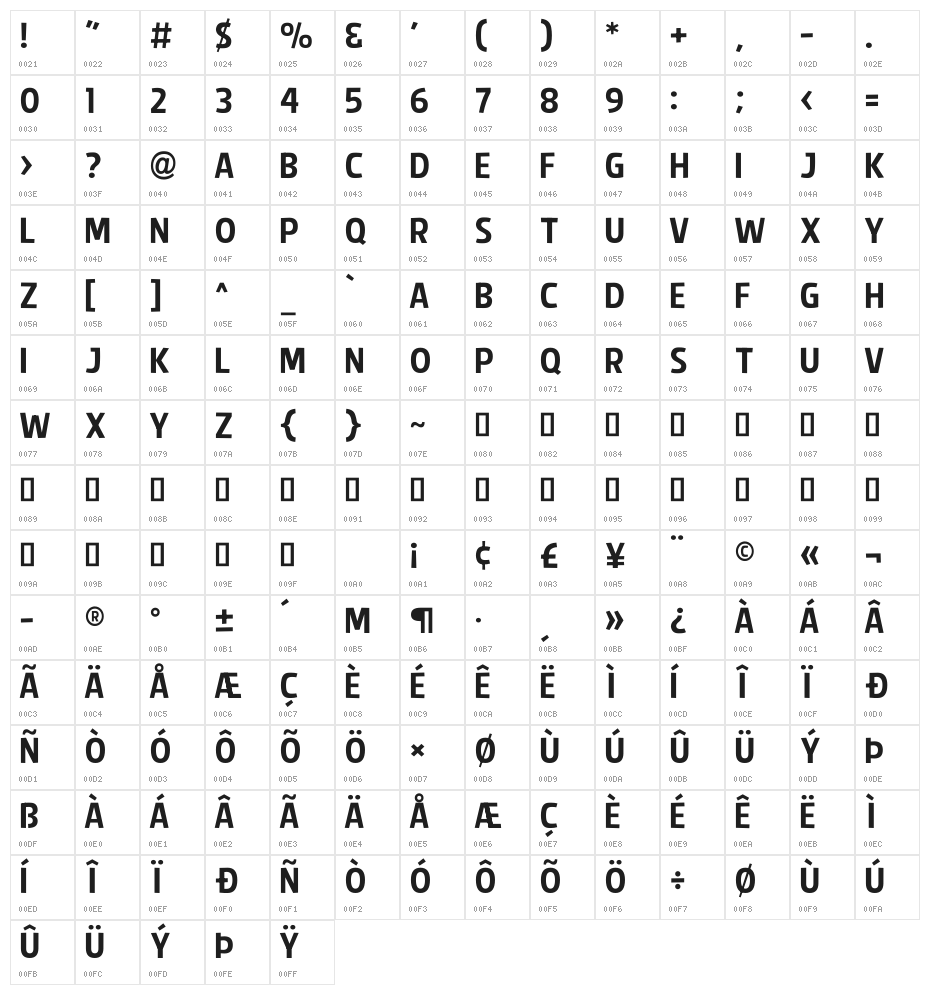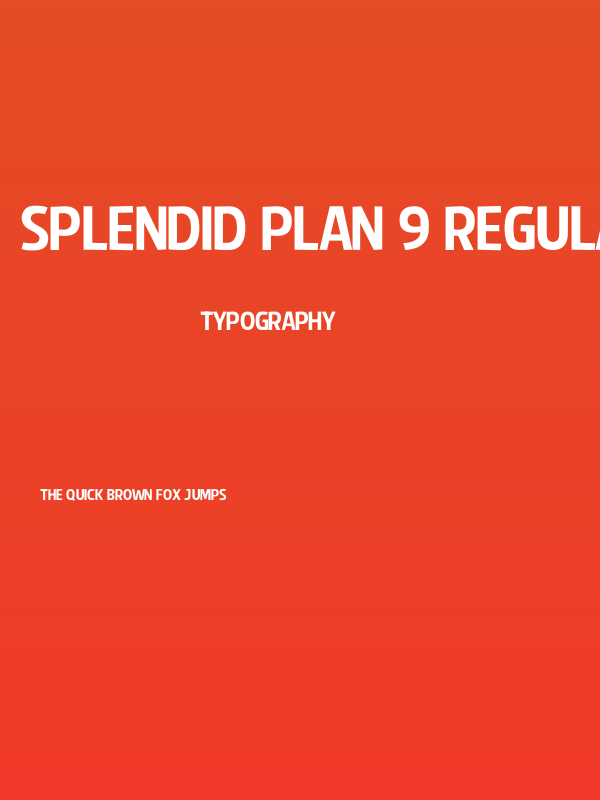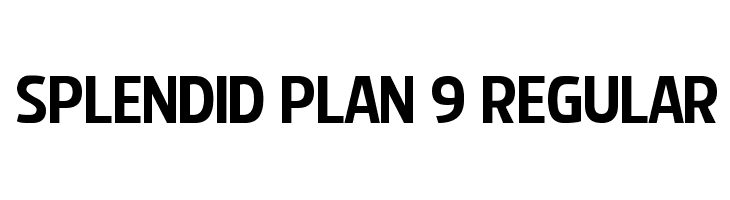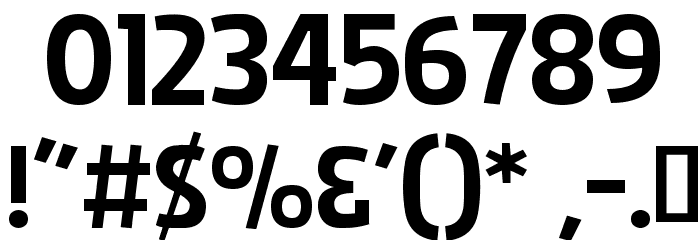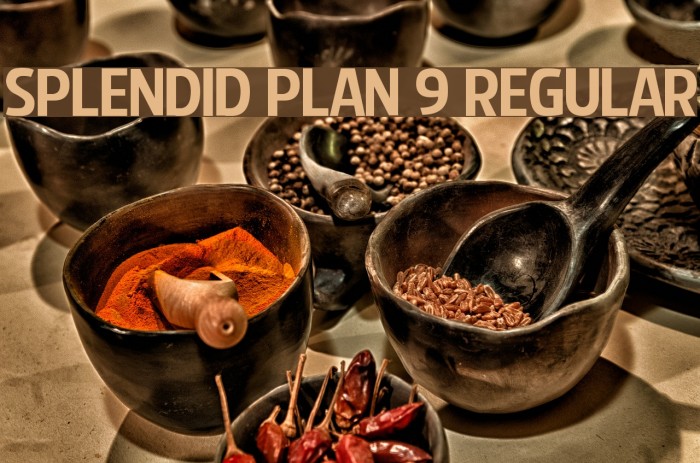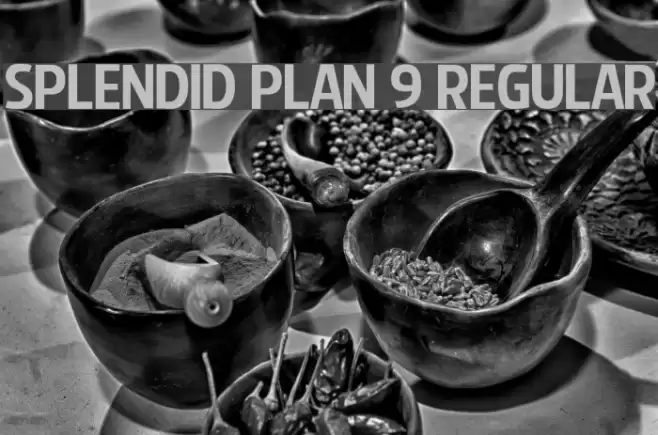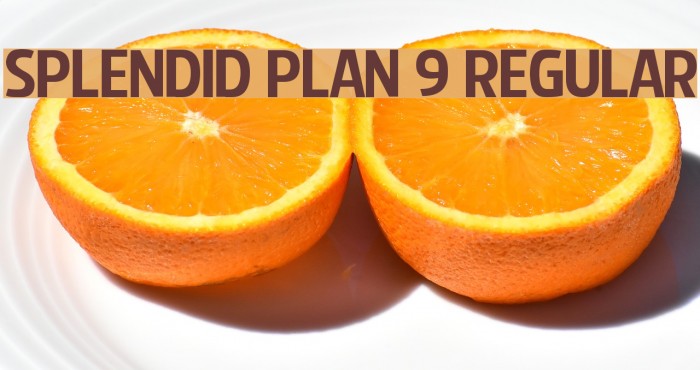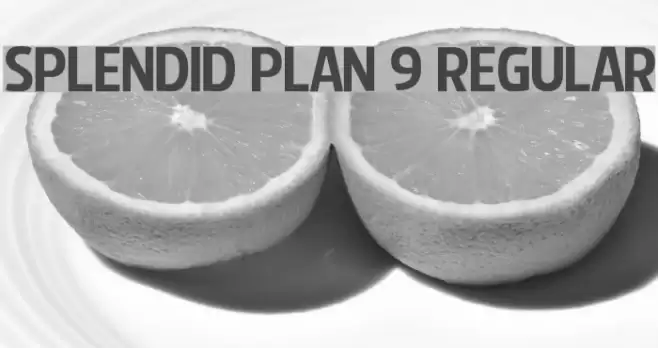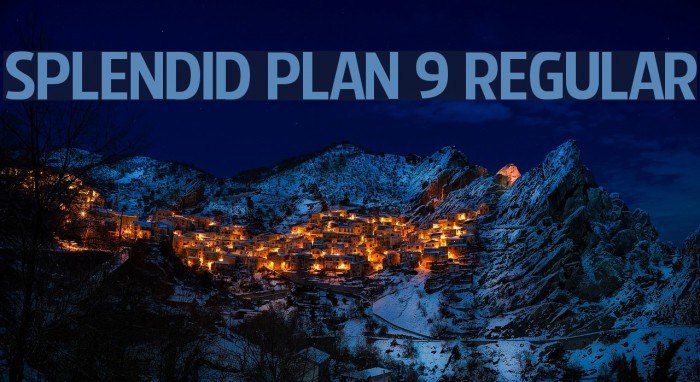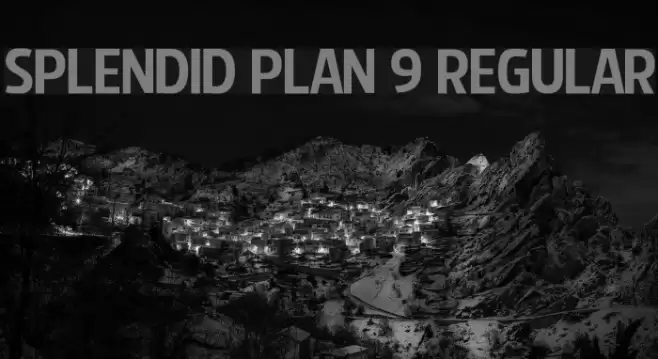
Splendid Plan 9 Regular Font
✎ Sans Serif
Splendid Plan 9 Regular Description
This font features a bold and modern sans-serif design with clean, straight lines and a geometric structure. The characters are uniform in width, providing a balanced and cohesive appearance. The uppercase and lowercase letters maintain a consistent height, contributing to a harmonious look. The numerals are clear and legible, making them suitable for various applications. Special characters are included, enhancing the font's versatility. The overall style is sleek and contemporary, making it ideal for digital and print media.
| Use Case | Headlines, Logos, Digital interfaces |
| Proposed Projects | Ideal for branding, advertising, digital interfaces, and editorial design. |